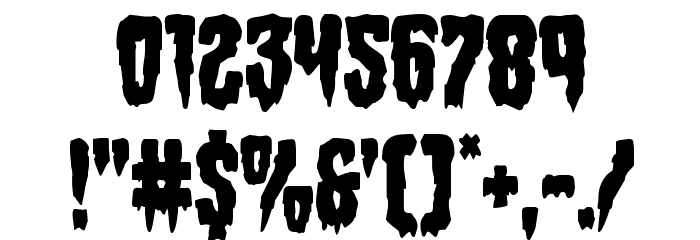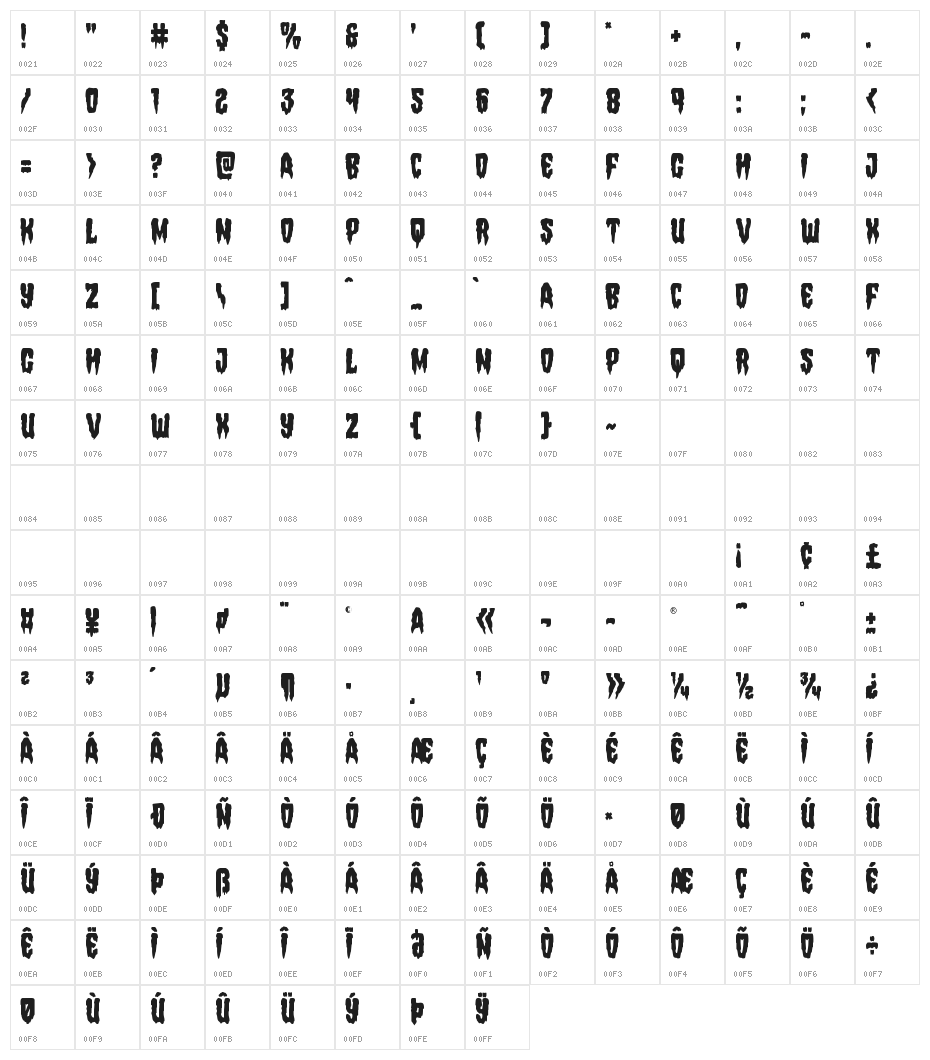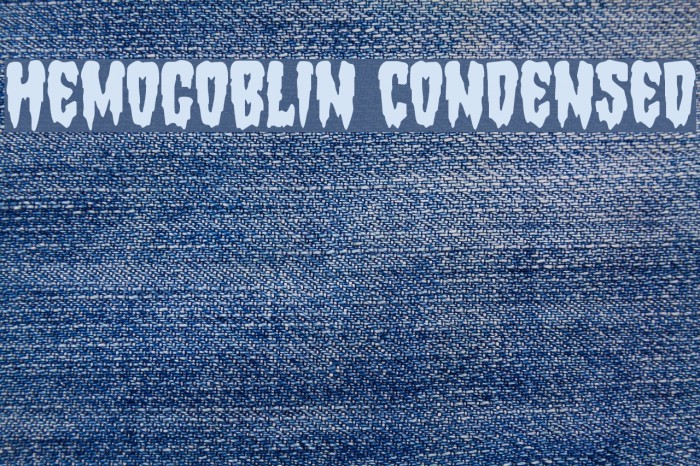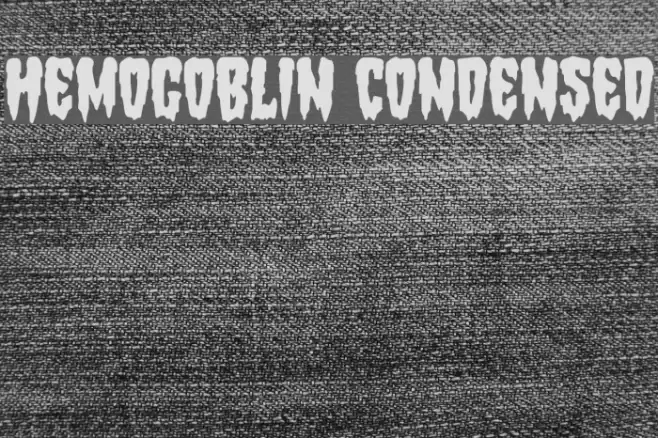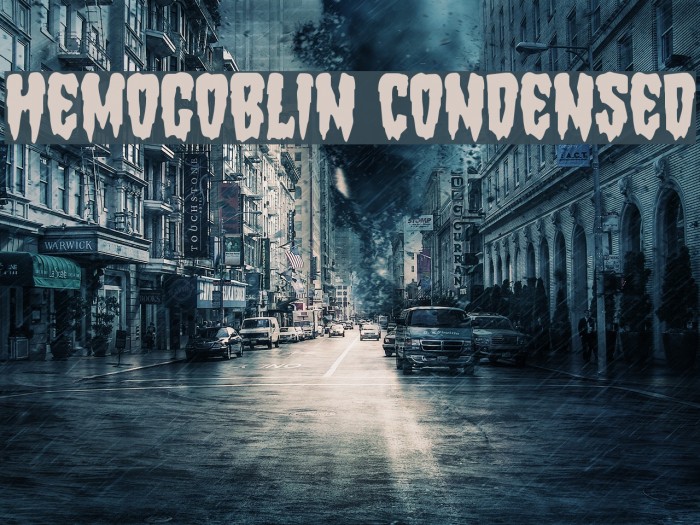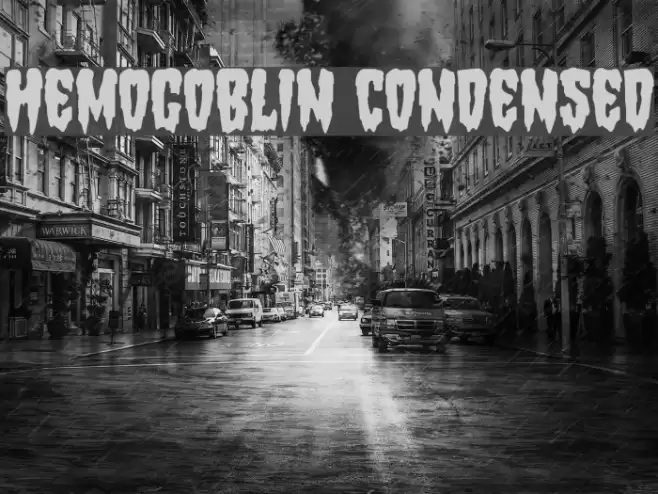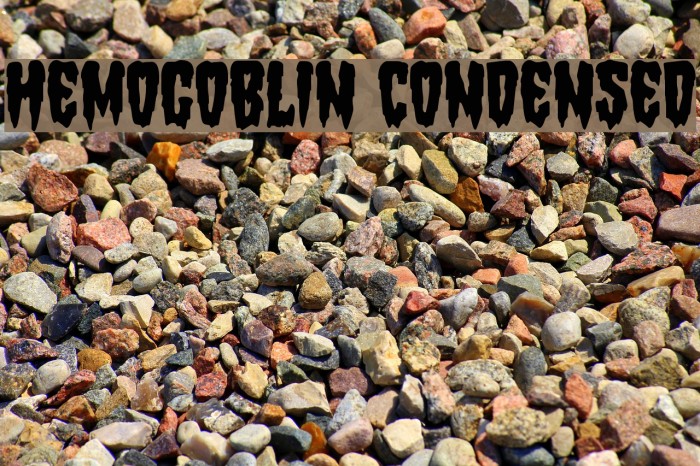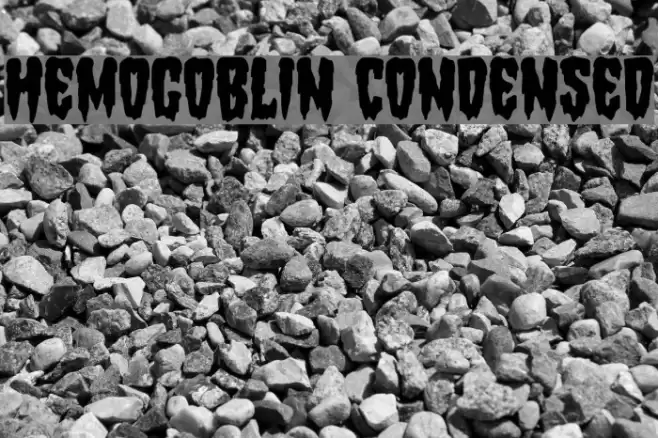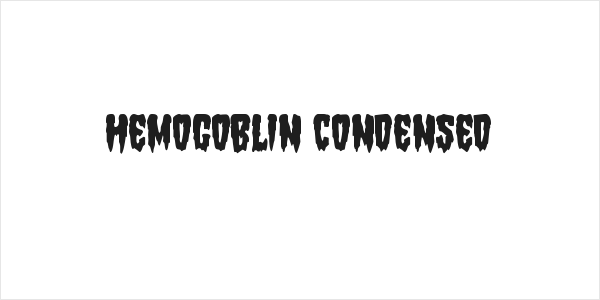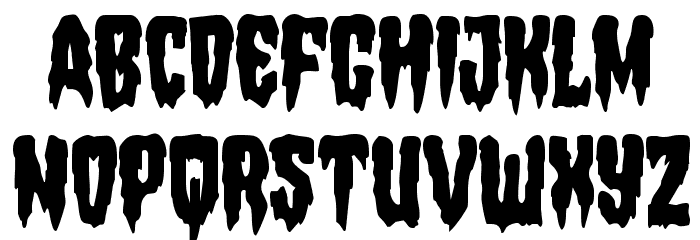
Hemogoblin Condensed Font
Hemogoblin Condensed Description
This font features a bold and dramatic style with jagged, irregular edges that give it a spooky, horror-themed appearance. The characters are condensed, enhancing the intensity and impact of the text. Each letter has a unique, dripping effect, reminiscent of melting wax or blood, making it ideal for Halloween or horror-related designs. The uppercase and lowercase letters maintain a consistent style, with numbers and special characters following the same eerie aesthetic. The overall look is both eye-catching and unsettling, perfect for creating a chilling atmosphere.
Proposed ProjectsIdeal for Halloween invitations, horror movie posters, themed event flyers, and spooky merchandise designs.